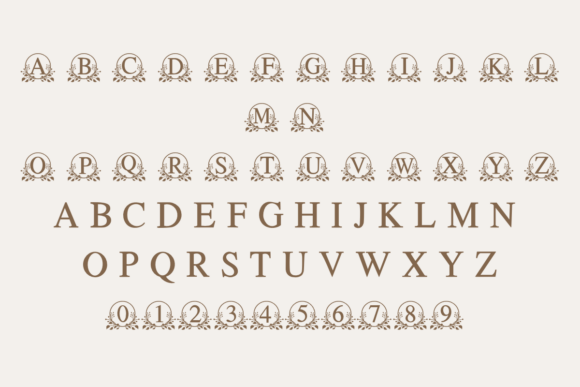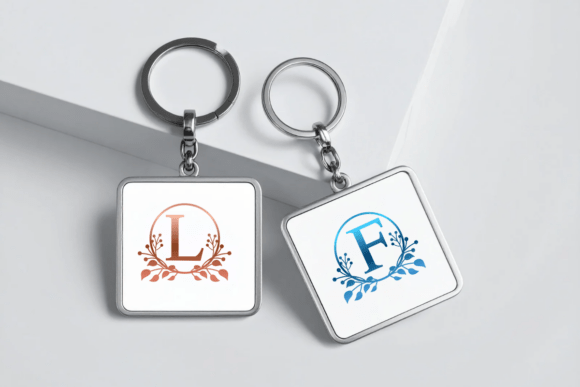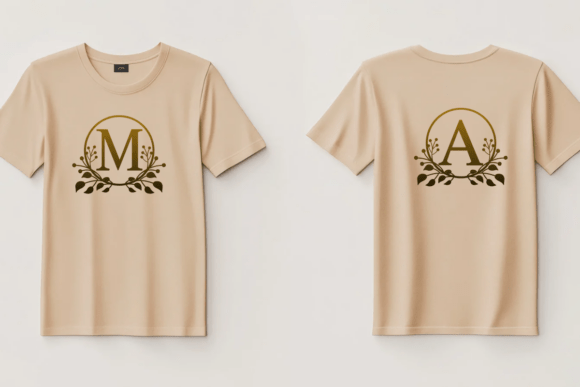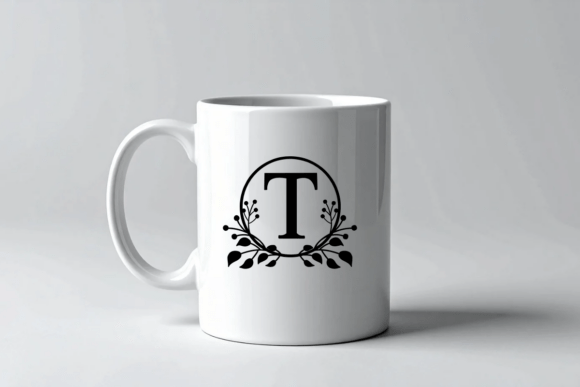
Introduction to Leafy Frame Monogram Font
You’re browsing through a design blog, and suddenly, you stumble upon a beautifully crafted wedding invitation that catches your eye. The intricate details, the elegant font, and the delicate frames all come together to create a stunning visual experience. You can’t help but wonder what font was used to create this masterpiece. Little do you know, that font might be the Leafy Frame Monogram Font, a stylish decorative font that’s about to become your new go-to design resource.
For designers, having access to high-quality design resources like the Leafy Frame Monogram Font can be a game-changer. It allows you to add a personal touch to your creative projects, whether it’s a custom invitation, a logo, or a social media graphic. And the best part? It’s available for free download, making it a valuable addition to your design toolkit.
Key Features of Leafy Frame Monogram Font
- Unique Monogram Design: The Leafy Frame Monogram Font offers a creative and elegant way to add a personal touch to any design project, making it perfect for wedding invitations, custom gifts, or other special occasions.
- Transparent Background: The font features a transparent background, allowing designers to easily overlay it on any image or background, giving them complete control over the design.
- High-Quality Design: The Leafy Frame Monogram Font is designed with high-quality graphics in mind, ensuring that it will look great on any device or screen, whether it’s a print project or a digital design.
- Perfect for Creative Projects: The Leafy Frame Monogram Font is ideal for any creative project that requires a unique and elegant touch, from wedding invitations to custom gifts and more.
Honest Review: Leafy Frame Monogram Font
I recently stumbled upon the Leafy Frame Monogram Font, and I’m excited to share my thoughts on this design resource. As a designer, I’m always on the lookout for unique and high-quality elements to elevate my creative projects.
What works well with this font is its versatility. The intricate leaf design can be used for various purposes, from wedding invitations to social media graphics. I particularly appreciate the fact that it’s available for free download, making it an excellent addition to any designer’s collection.
The font also features a transparent background, which allows for seamless integration with any background image or color. This level of flexibility is a major plus in my book.
- ✨ Unique leaf design that adds a touch of elegance to any project
One potential limitation is the font’s limited character set. While it’s perfect for monogram designs, it may not be as useful for longer text-based projects. However, this is a minor quibble in an otherwise excellent design resource.
Overall, I’m impressed with the Leafy Frame Monogram Font. Its unique design, high quality, and versatility make it an excellent addition to any designer’s toolkit.
The Leafy Frame Monogram Font is a unique and beautiful design resource that can add a touch of elegance to any creative project. With a transparent background and high-quality design, this font is perfect for various applications.
Use the font in combination with other design elements to create a cohesive look. Experiment with different colors and sizes to find the perfect balance. You can also use the font as a background or overlay to add depth to your design.